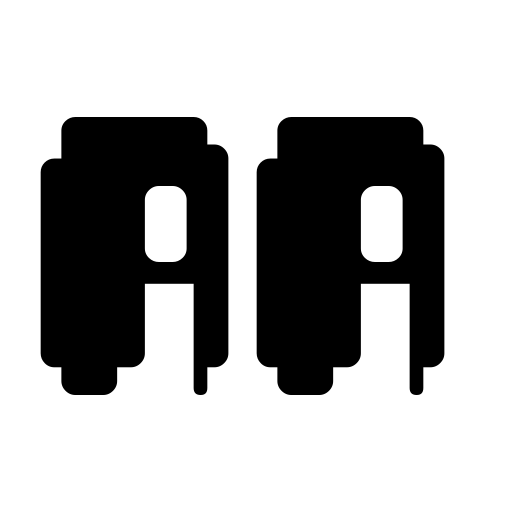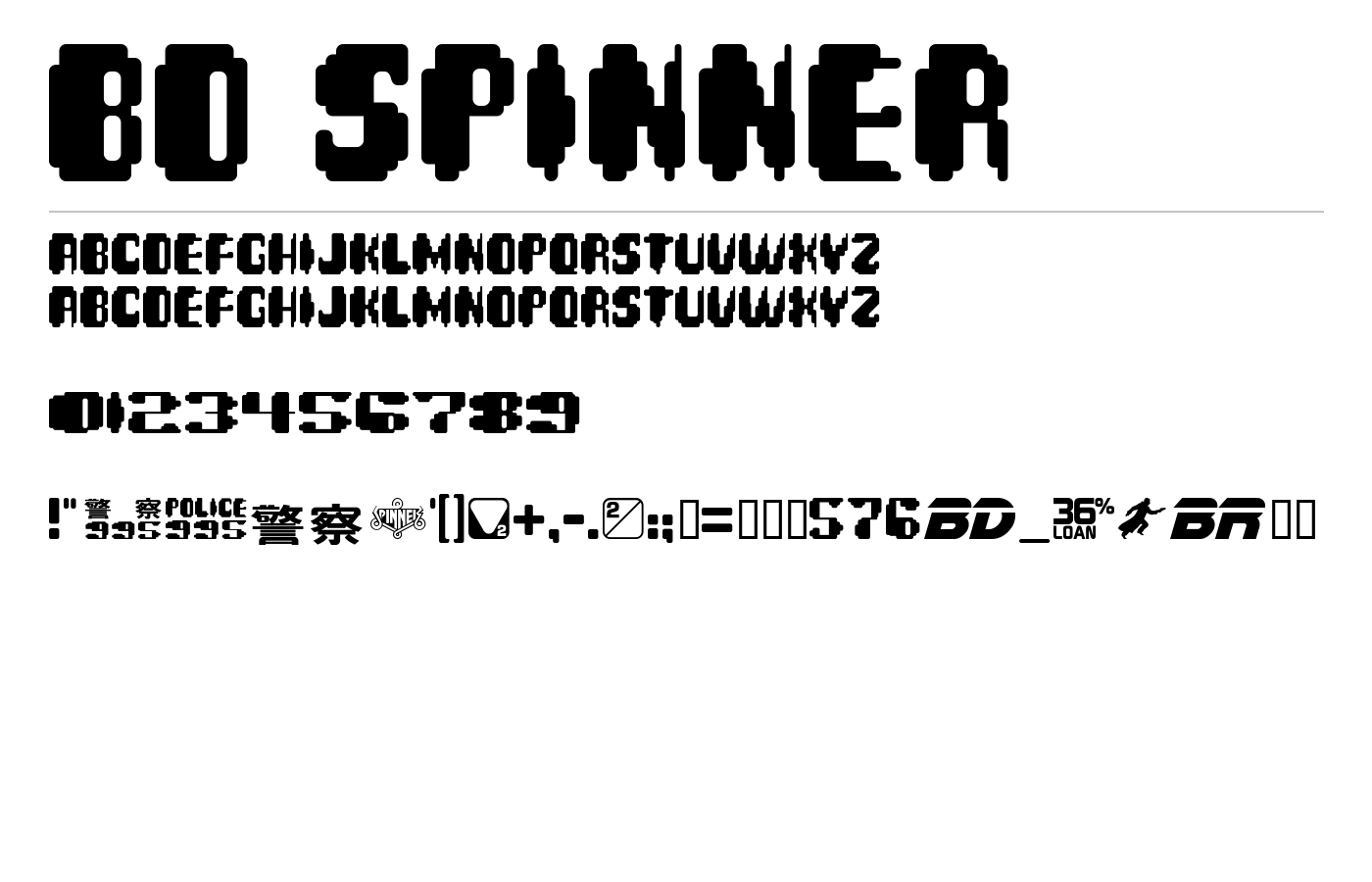
BD Spinner is a bold, condensed sans-serif font with a strong techno and pixelated aesthetic that captures a futuristic, digital vibe. Its blocky, geometric letterforms feature consistent stroke weight and a compact design, making it ideal for eye-catching headlines, logos, and designs that want to convey a modern, edgy, or arcade-inspired style. This font works best in contexts where a striking, impactful presence is desired, such as video game graphics, tech branding, or urban posters.
BD Spinner Font
About BD Spinner Font